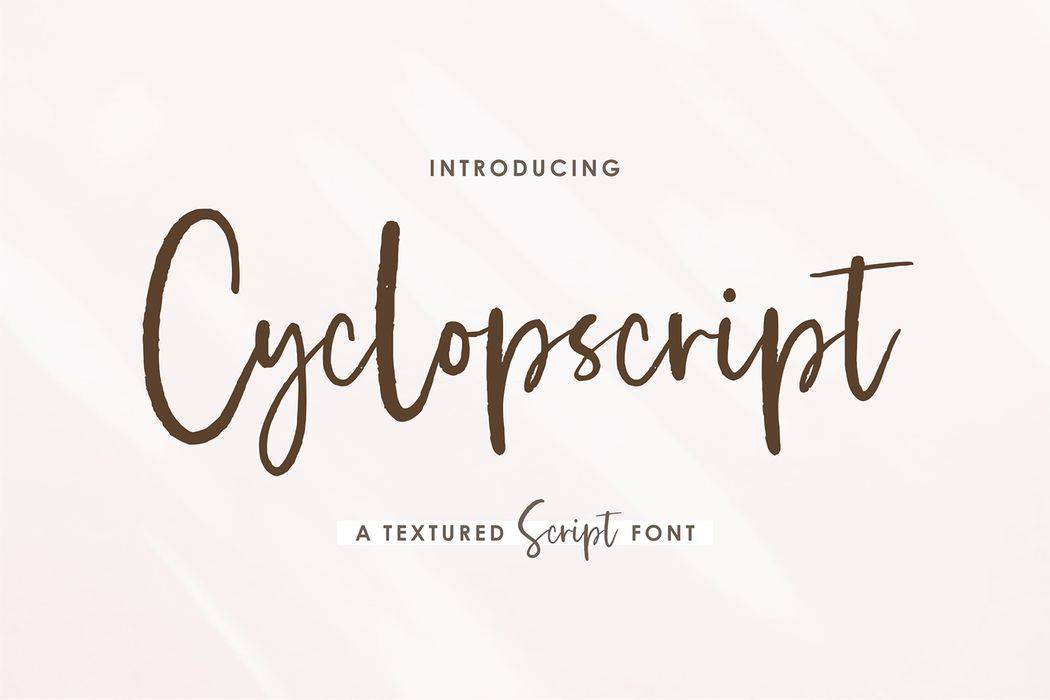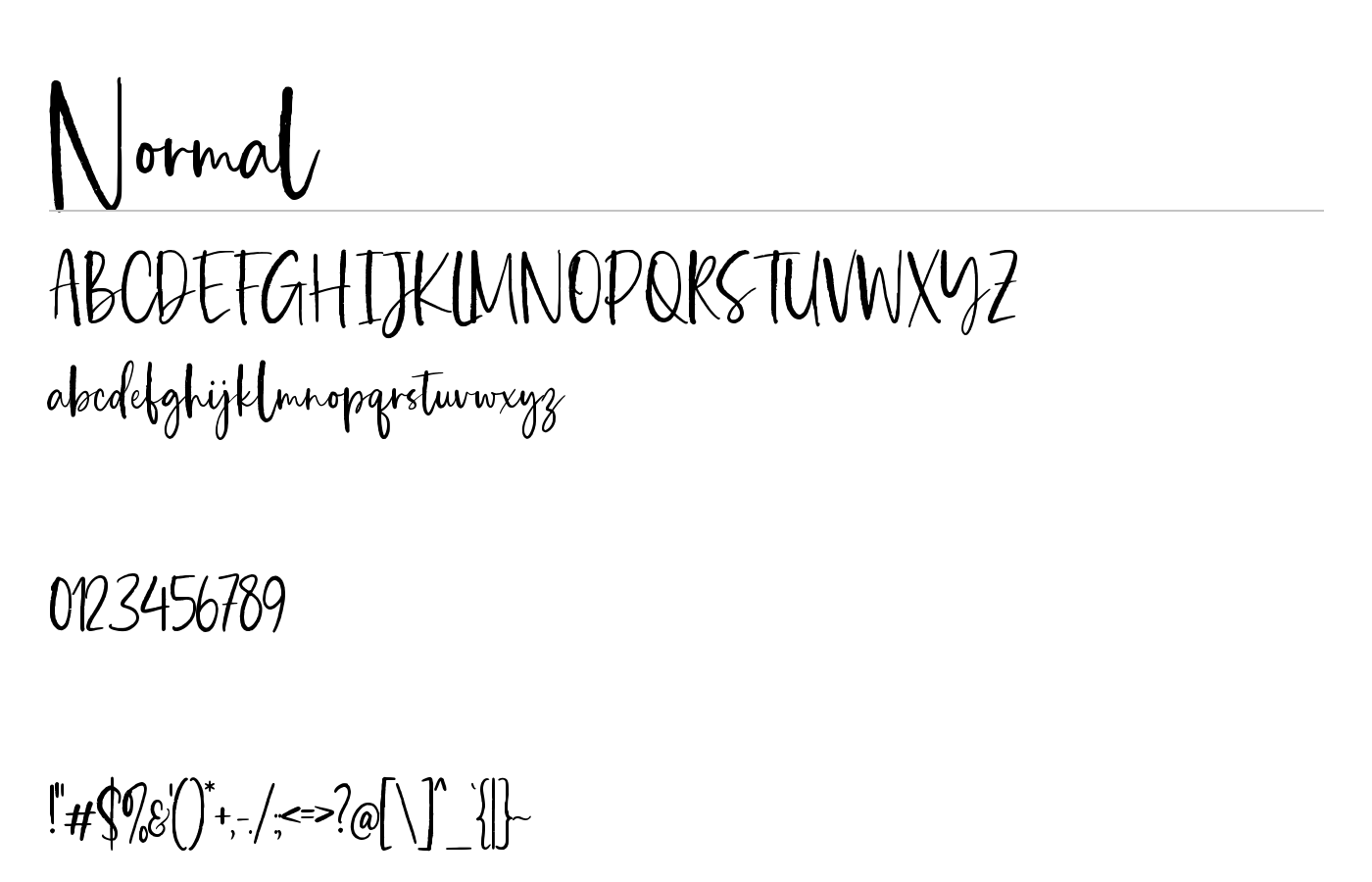
Cyclopscript is a playful and casual handwritten script font featuring tall, narrow letterforms with a lively, irregular stroke pattern that adds a personal and artistic touch. Its light weight and upright style make it perfect for creative projects like invitations, branding, and social media graphics that seek a friendly, informal vibe. This font works well when you want to convey warmth and approachability while maintaining a unique, hand-crafted charm.
Cyclopscript Font